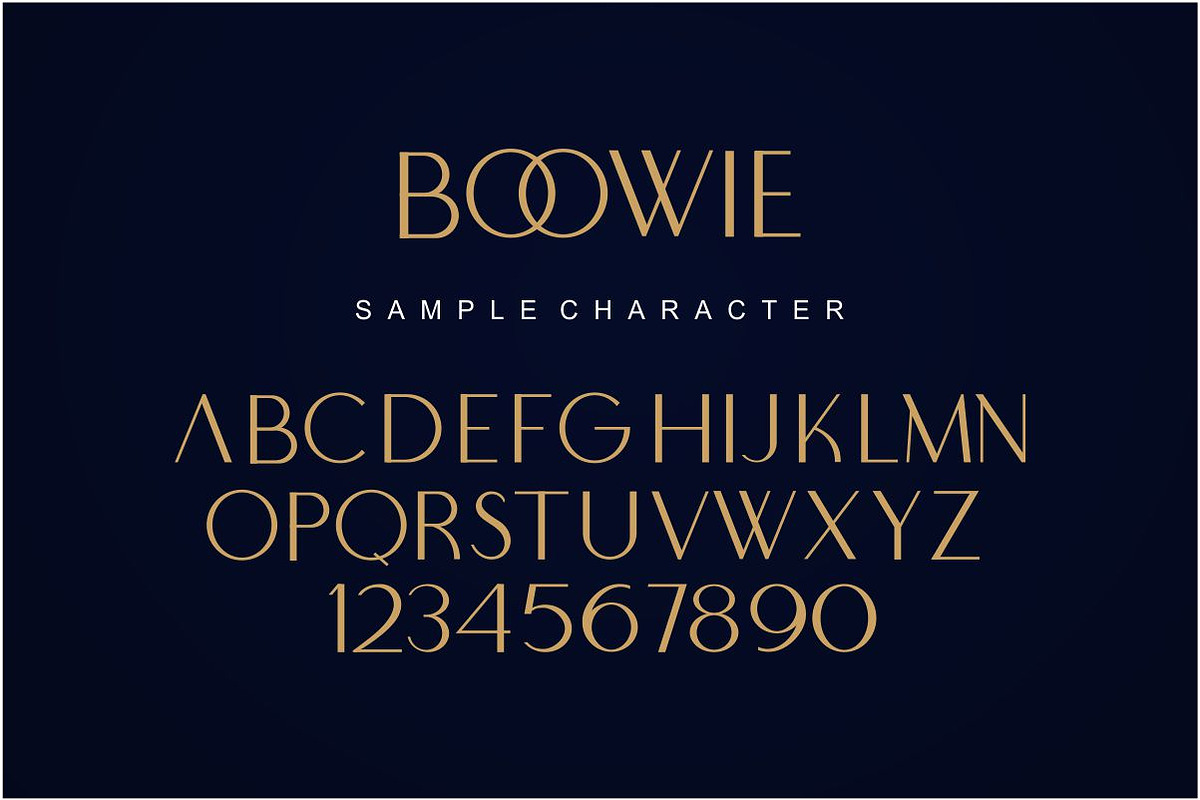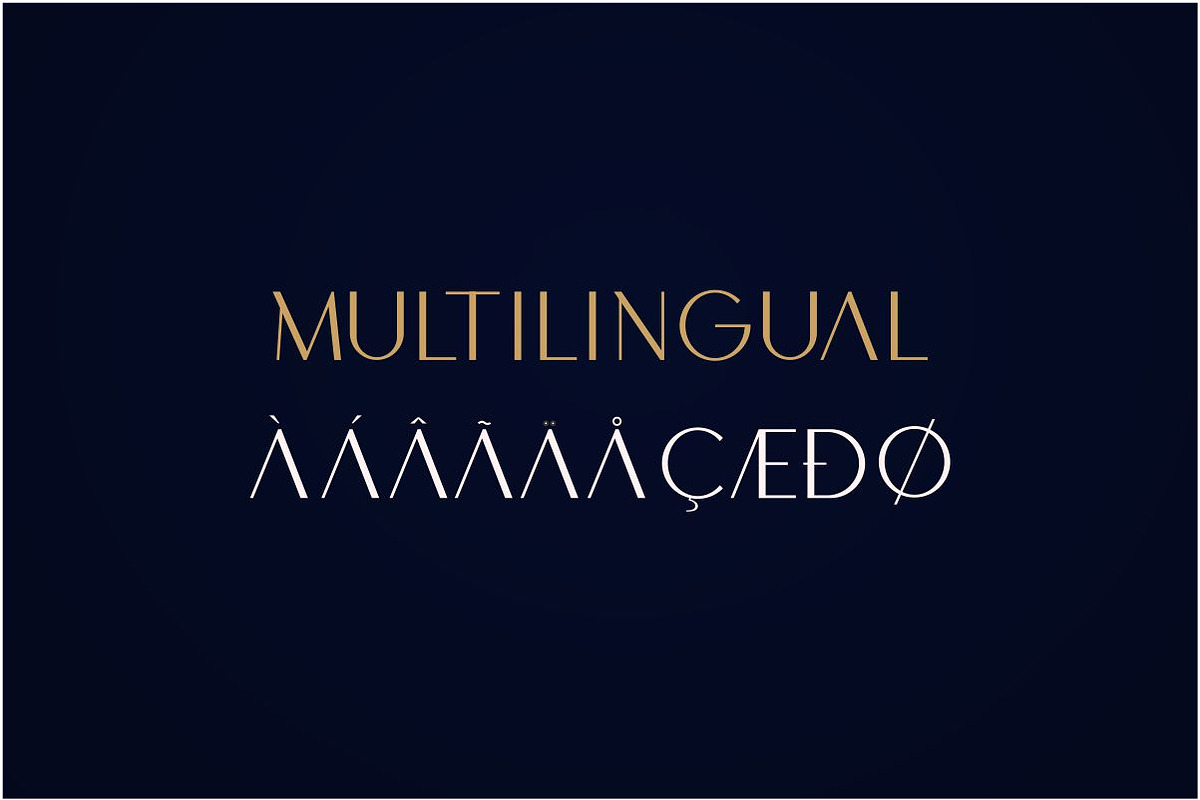
Boowie || Modern minimalist elegant.
Boowie is a minimaist font sans serif regular and italic version.Boowie perfect use for logos, print, collage, body text, and more! It looks minimalist a really cool modern-meets-vintage look to any piece.